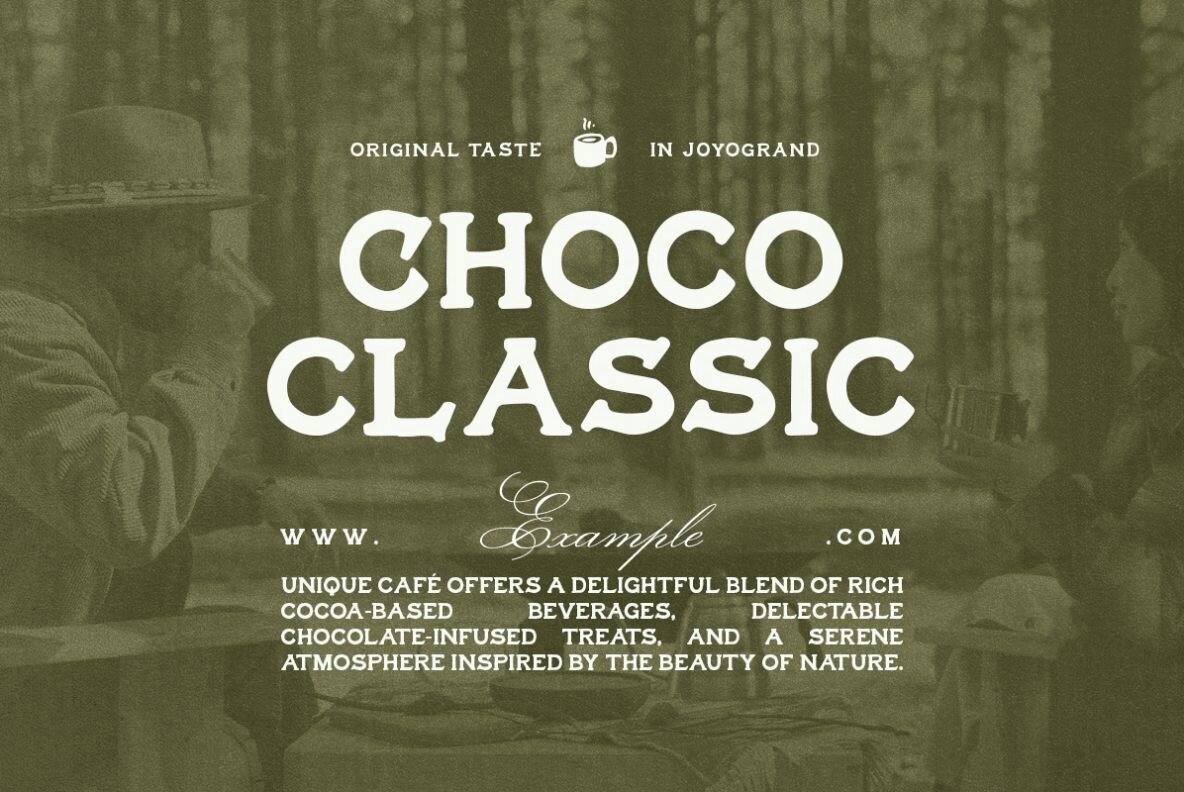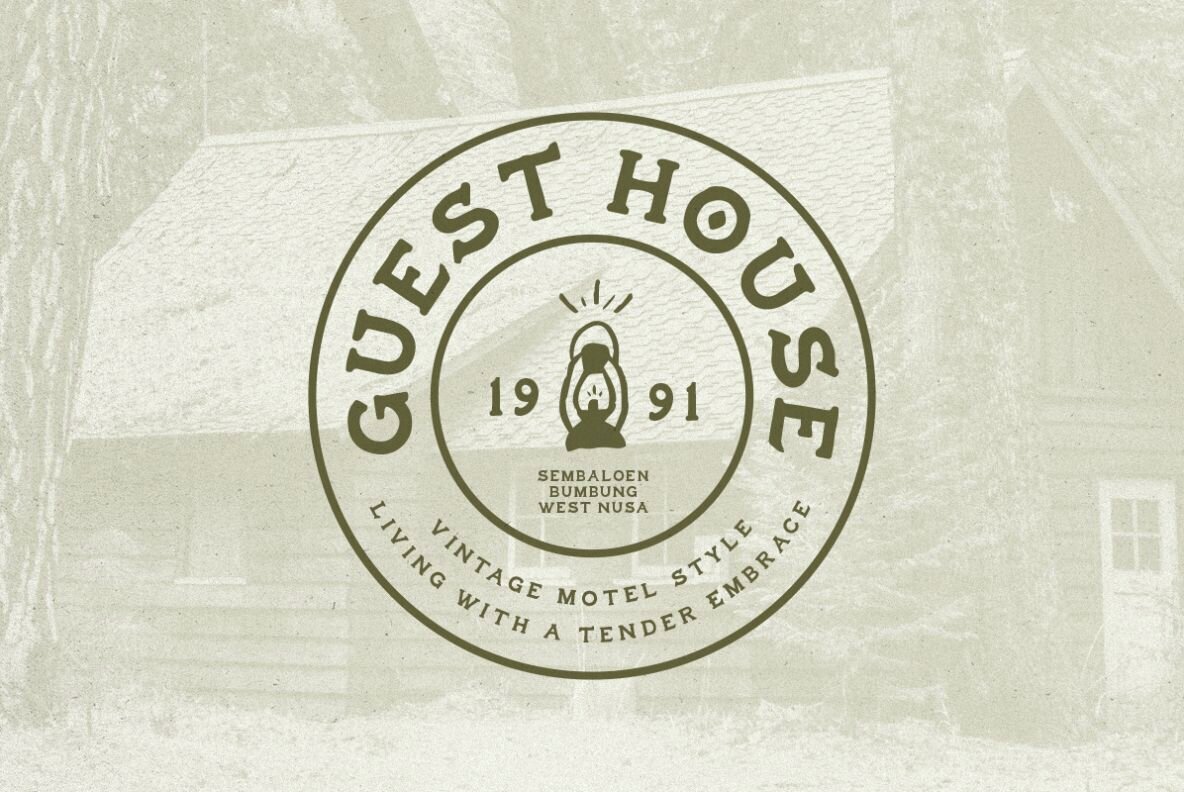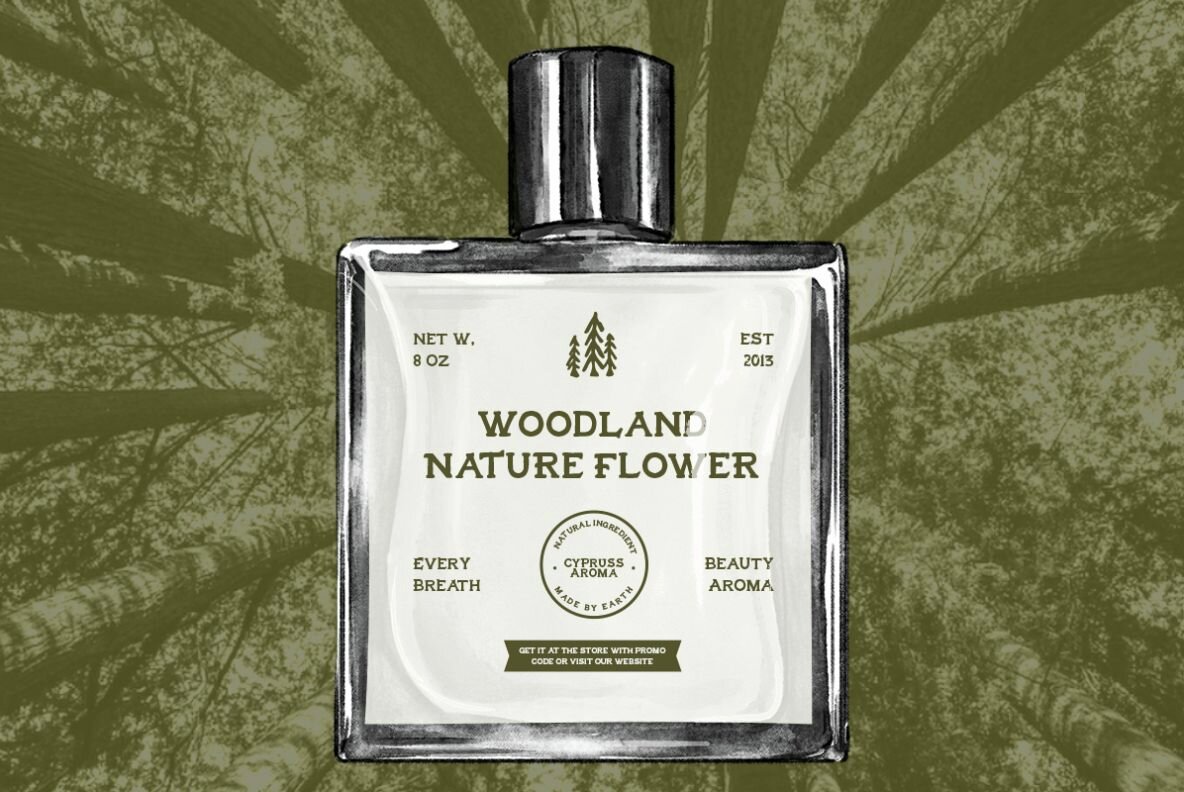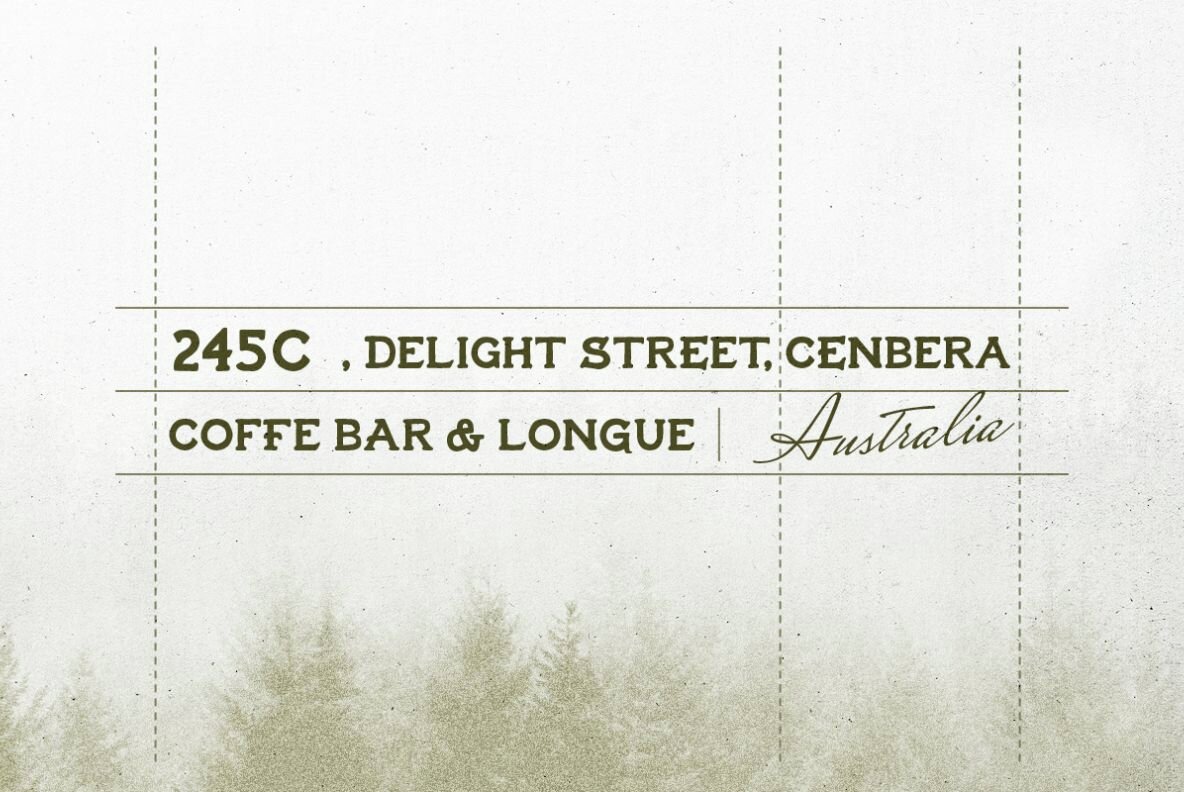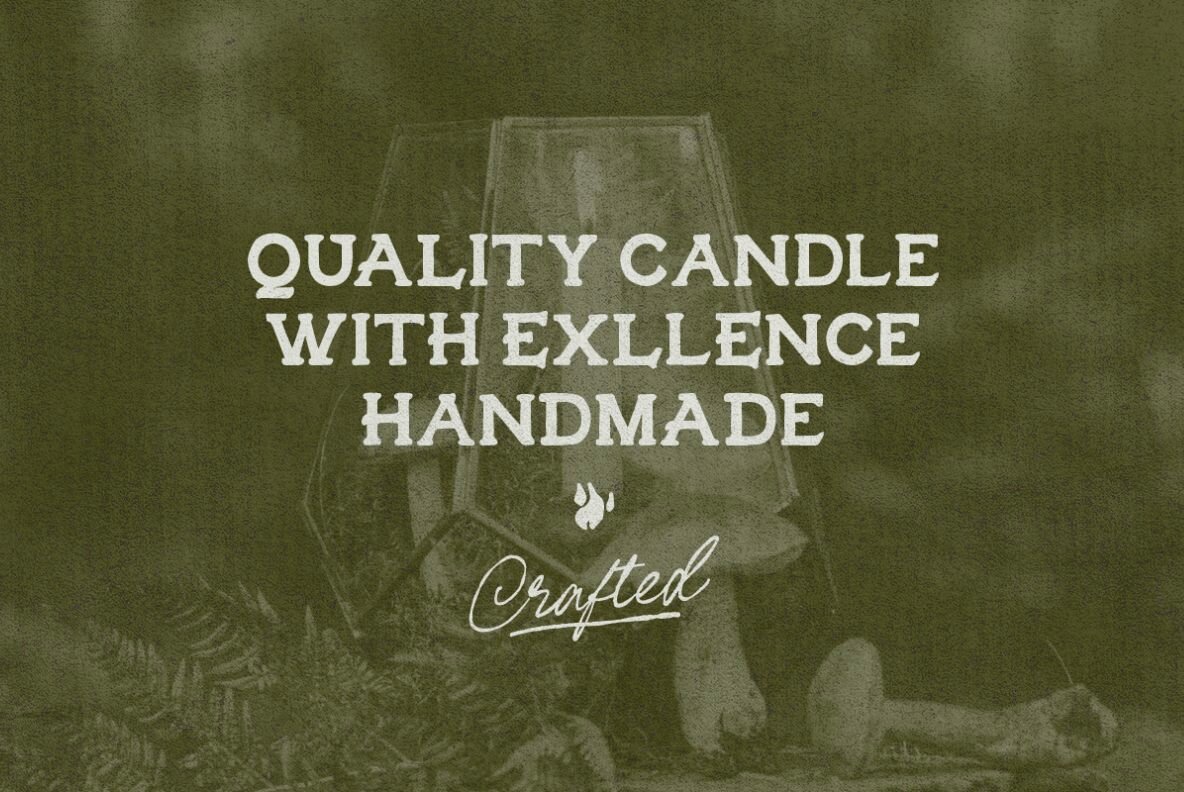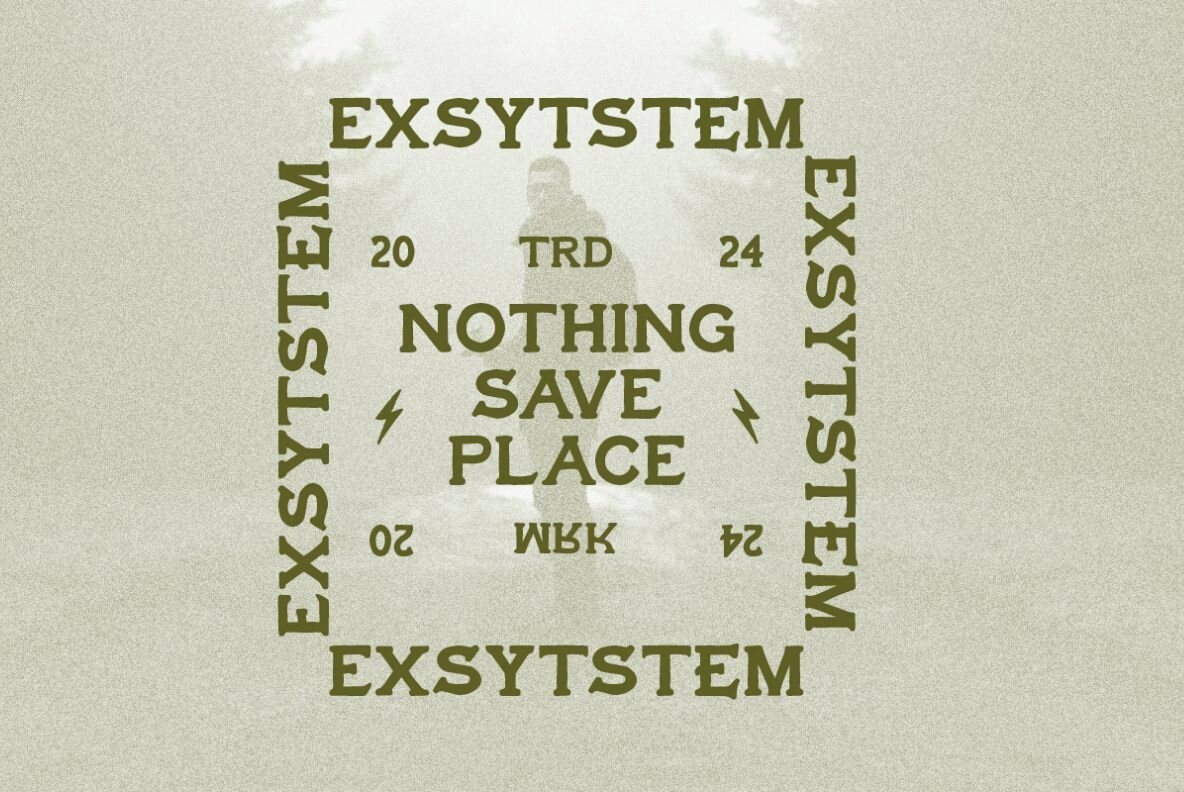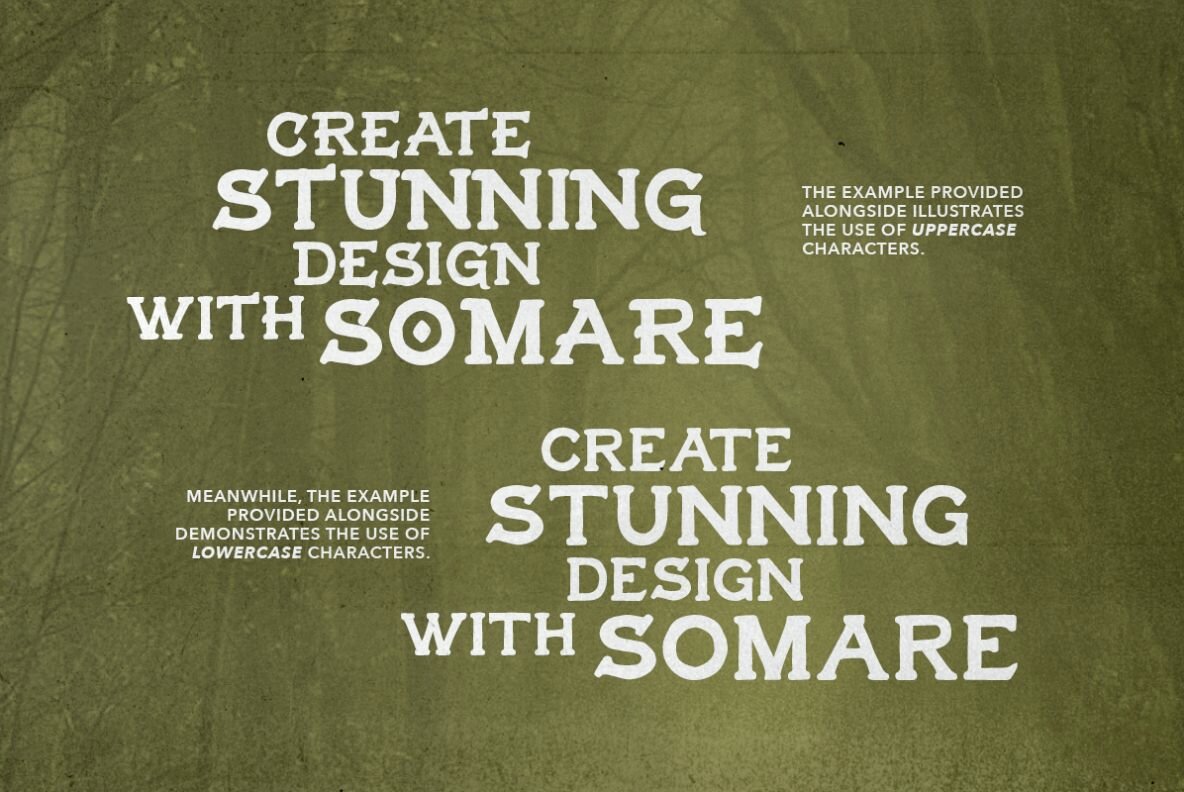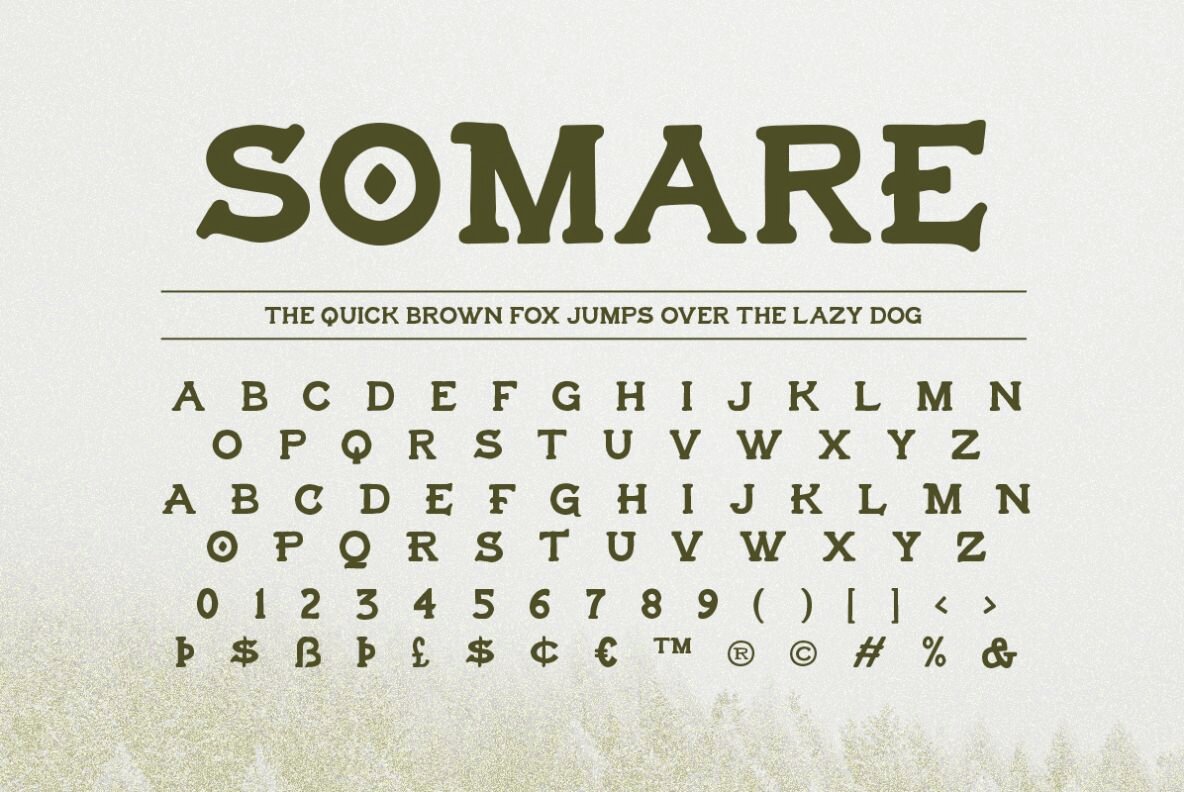
Somare Font
Somare Regular
Somare is a hand-lettered slab serif font that exudes a rugged and vintage aesthetic, ideal for projects looking to convey adventure and outdoor vibes. Its distinct style makes it perfect for logotypes, quotes, and other creative projects that aim to capture a sense of exploration and nostalgia. The font features a unique combination of uppercase and lowercase characters, allowing for flexible and dynamic design applications.
The versatile nature of this font is further enhanced by its multilingual support, catering to a wide array of design needs across different languages. The rough texture of Somare adds an authentic touch, making it suitable for any project seeking a genuine and raw appeal. Whether used in branding, posters, or digital designs, this font helps create a distinctive and memorable visual impact.